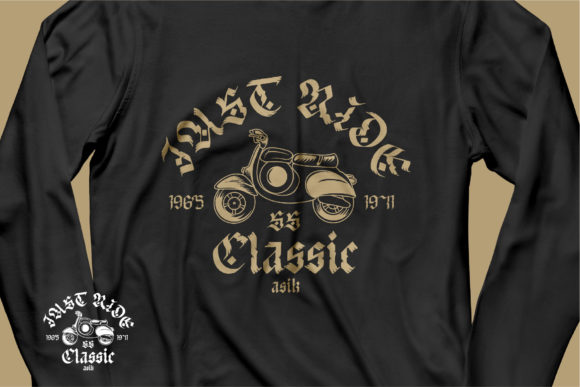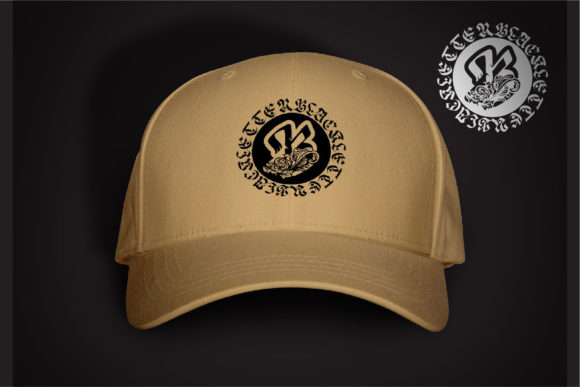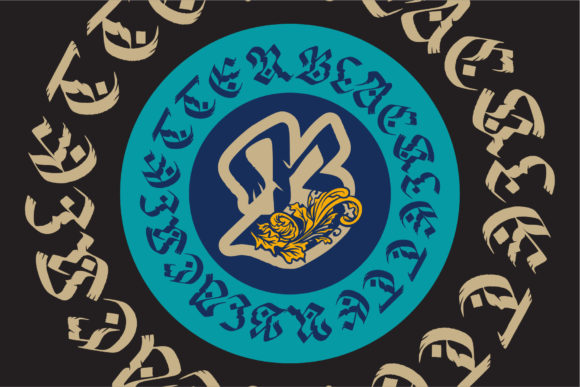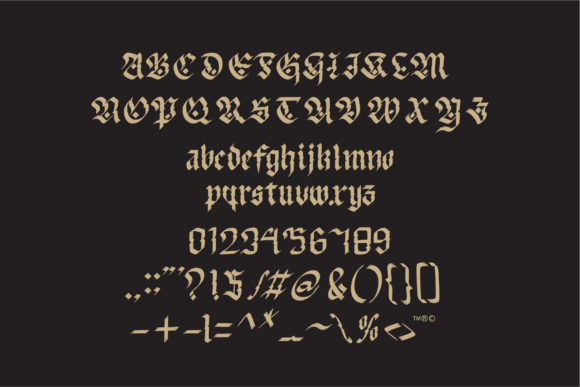
Introduction to Franklin Fracture Font
Franklin Fracture is an assertive blackletter font.
It is the perfect addition to your t-shirt, jacket, hat, design studio, and various other creations that require a bold, gothic touch .
Key Features of Franklin Fracture Font